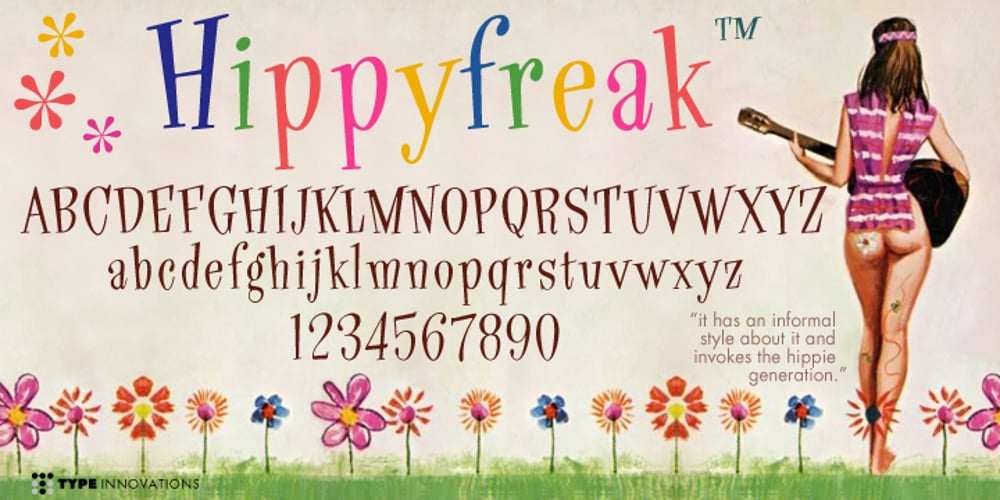
Hippyfreak
Hippyfreak font
Hippyfreak Font Family was designed by Alex Kaczun and published by Type Innovations. Hippyfreak contains 1 styles and family package options. Hippyfreak was created by manipulating my Beatnik font. I stretched and distorted the outlines until I got an interesting effect reminiscent of the Hippie generation. It has a cool and hip rhythm and movement. Great to use for those funky headlines, or whenever a retro look is desired. Works great at all point sizes. Groovin’ baby.